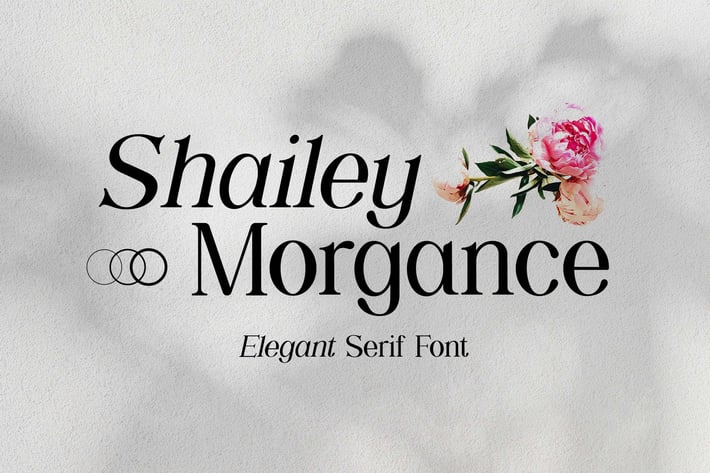
Shailey Morgance Elegant Serif Font
We are introducing our new product, named Shailey Morgance Elegant Serif Font. Shailey Morgance Elegant Serif Font that feels beautiful classy, elegant, and modern. This font is ideally suited for various projects, such as signature, stationery, logo, wedding, typography quotes, magazine or book covers, website headers, clothing, branding, packaging design, and more. Also, fashion-related branding or editorial design displays both masculine and feminine qualities.